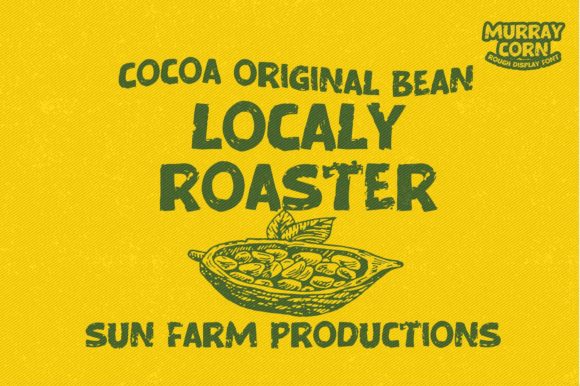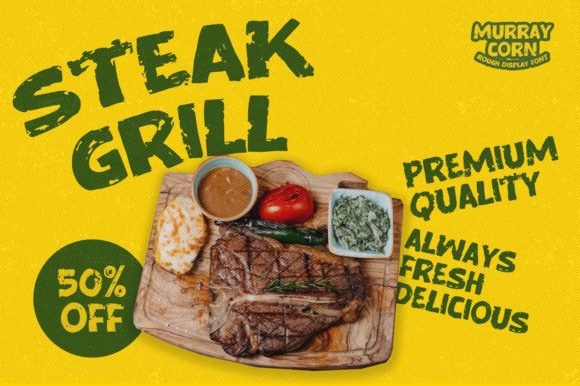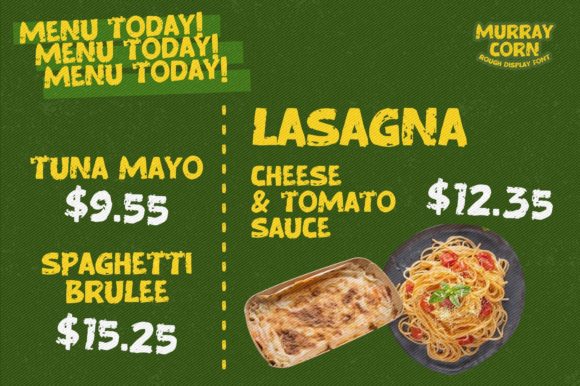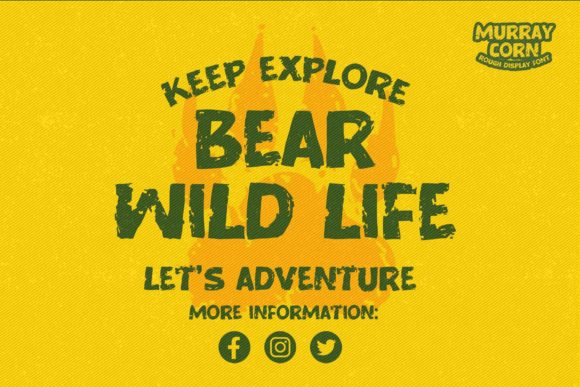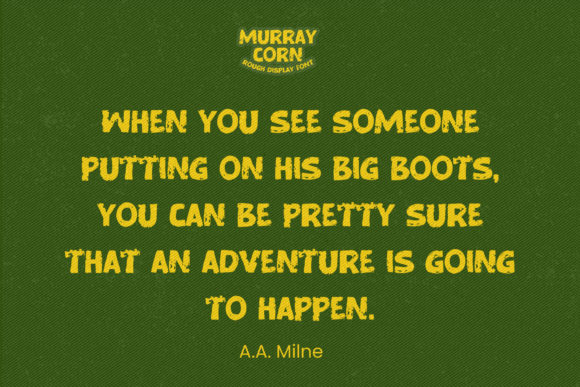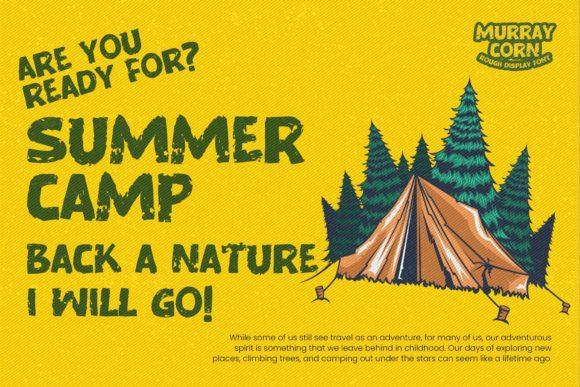
Introduction to Murray Corn Font
Have you ever been brainstorming a creative project, and the perfect font just slips your mind? It’s a frustrating feeling, especially when you’re on a deadline. But what if I told you that I’ve got just the thing to spice up your next design? Enter the Murray Corn Font, a rough display font that’s as authentic as it is versatile.
This free download is a game-changer for designers, offering a high-quality, handwritten touch that’s perfect for a wide range of creative projects. From watermarks to product packaging, the Murray Corn Font adds a charming, human element that’s hard to replicate with more formal fonts.
With a transparent background and plenty of design flexibility, the Murray Corn Font is a valuable resource for any creative project. Whether you’re designing invitations, advertisements, or special event materials, this font is sure to bring a touch of personality to your work.
Key Features of Murray Corn Font
- Features a transparent background, allowing for seamless integration into any design
- Includes a wide range of characters, including uppercase and lowercase letters, numbers, and punctuation
- Supports resolutions up to 300 DPI, making it suitable for high-resolution printing
- Designed with a unique, distressed aesthetic, adding a touch of vintage charm to any design
- Perfect for use in graphic design, digital art, and other creative projects where a distinctive font is desired
Honest Review: Murray Corn Font
I recently stumbled upon the Murray Corn Font while browsing for a free download to enhance a creative project. I must say, I was quite impressed by the high quality and unique design of this font.
- Unique design style that adds a touch of vintage charm to any project
- High quality font that’s perfect for print and digital use
- Transparent background, making it easy to work with in various design applications
- Great for creative projects that require a rustic or vintage feel
- Limited character set, which may not be ideal for projects that require a wide range of characters
- No bold or italic variations, which may limit its use in certain design scenarios
Overall, I’m quite pleased with the Murray Corn Font and would recommend it to designers looking for a unique and high-quality design resource. While it may have some limitations, its unique design style and high quality make it a great addition to any design collection.
Some popular tips for getting the most out of the Murray Corn Font include using it for food-related designs, creating playful and fun graphics, and experimenting with different font sizes and styles. Common use cases for this font include social media graphics, presentations, and blog posts.